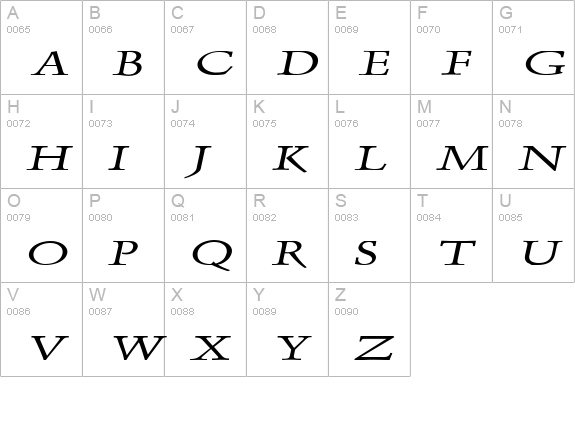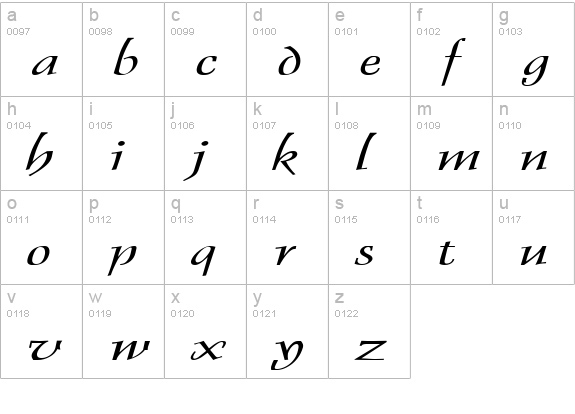
Dolphin Extended Italic is a distinctive, extended-width, italic variant in the Dolphin typeface family \xE2\x80\x94 well suited to design and typography projects.
Introducing Dolphin Extended Italic font, a sleek and modern typeface that exudes elegance and sophistication. With its extended italic design, this font is perfect for adding a touch of flair to your projects. Whether you're designing a logo, creating a poster, or crafting a stylish website, Dolphin Extended Italic font is sure to make a lasting impression. Best of all, this font is completely free to download at FontsMarket.com. So why wait? Elevate your designs with Dolphin Extended Italic font today and bring your creativity to new heights.